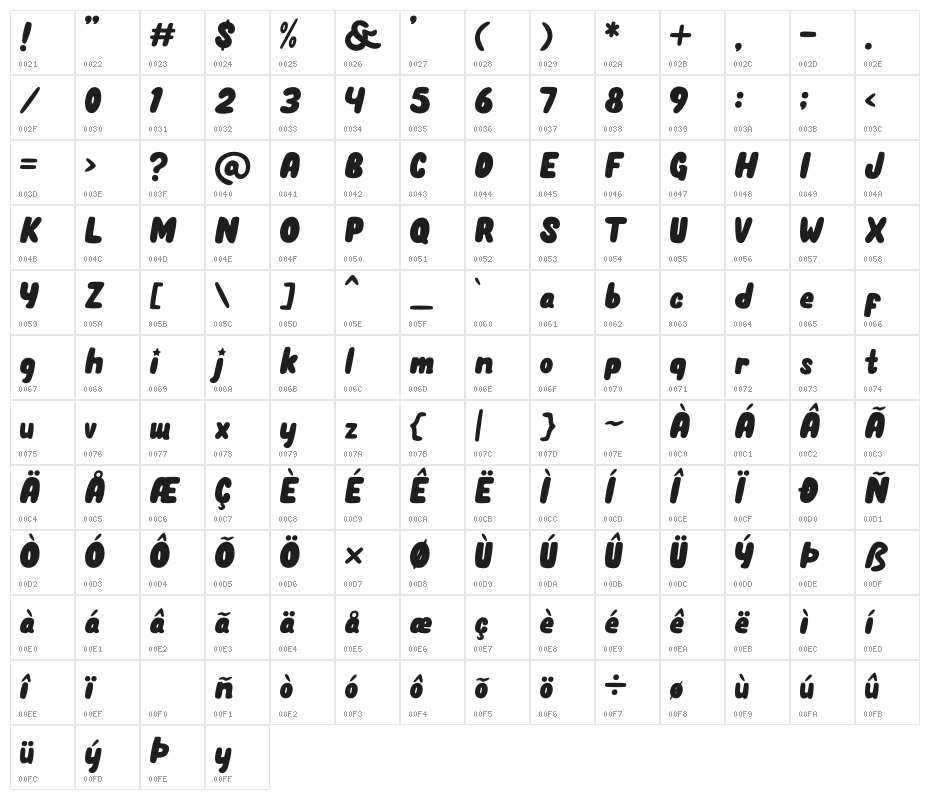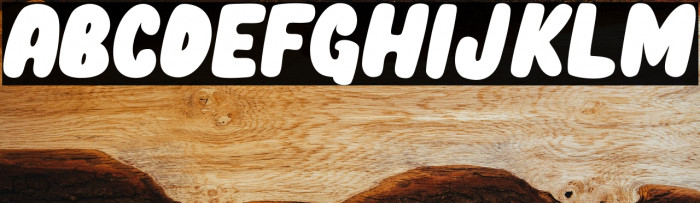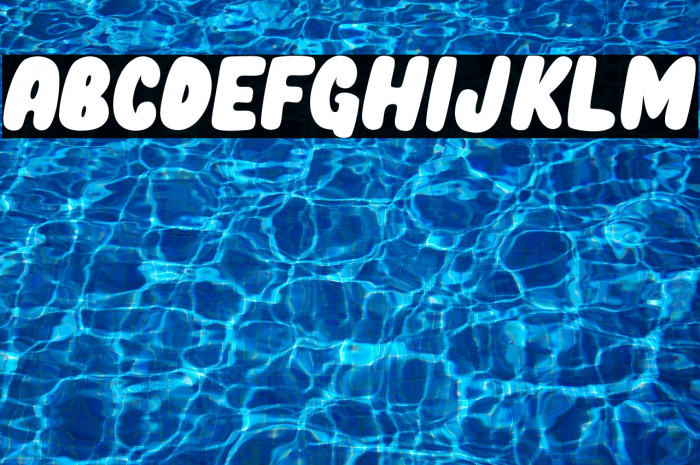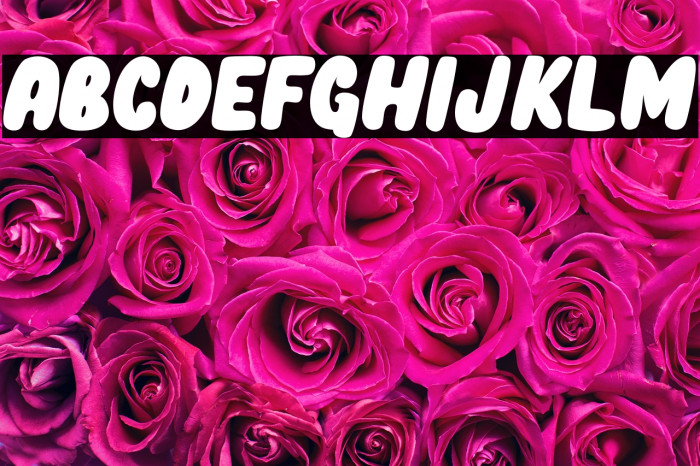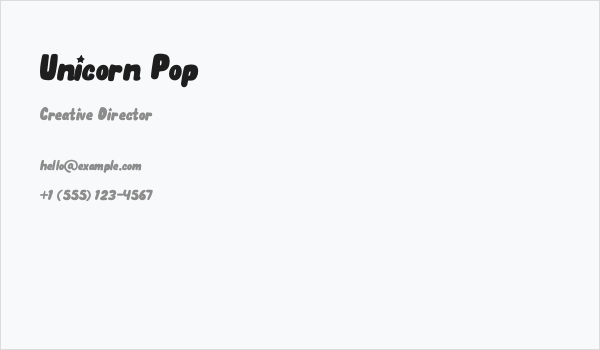
Unicorn Pop Font
Unicorn Pop Description
This playful and bold font features rounded, bubbly characters that exude a sense of fun and whimsy. The uppercase and lowercase letters are consistent in their rounded form, creating a cohesive and friendly appearance. The numbers and special characters maintain the same playful style, making it versatile for various uses. The font's thick strokes and lack of sharp edges contribute to its approachable and informal feel, ideal for projects that aim to capture attention with a lighthearted tone.
| Overall Style | Playful, Fun, Whimsical |
| Proposed Projects | Perfect for children's books, playful branding, party invitations, and any design that requires a fun and approachable aesthetic. |